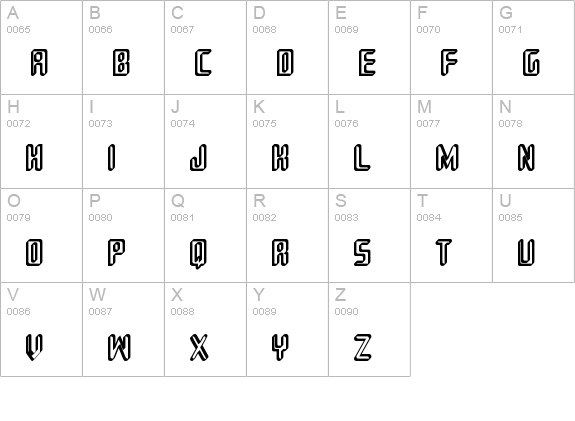
Sujeta 3D Font Details
Sujeta 3D font is a stunning and eye-catching typeface that brings a whole new dimension to your design projects. With its intricate 3D effect, Sujeta is sure to make your text pop and stand out from the crowd. This versatile font is perfect for a wide range of applications, from branding and advertising to packaging and web design. The unique design of Sujeta 3D font makes it a great choice for projects that require a modern and dynamic look. Its sleek lines and sharp edges give your text a futuristic feel, while the 3D effect adds depth and visual interest. Whether you're creating a poster, logo, or website, Sujeta is sure to make a bold statement. And the best part? Sujeta 3D font is completely free to download at FontsMarket.com. That's right, you can add this stylish and versatile typeface to your collection without spending a dime. So why wait? Give your designs a fresh new look with Sujeta 3D font today!